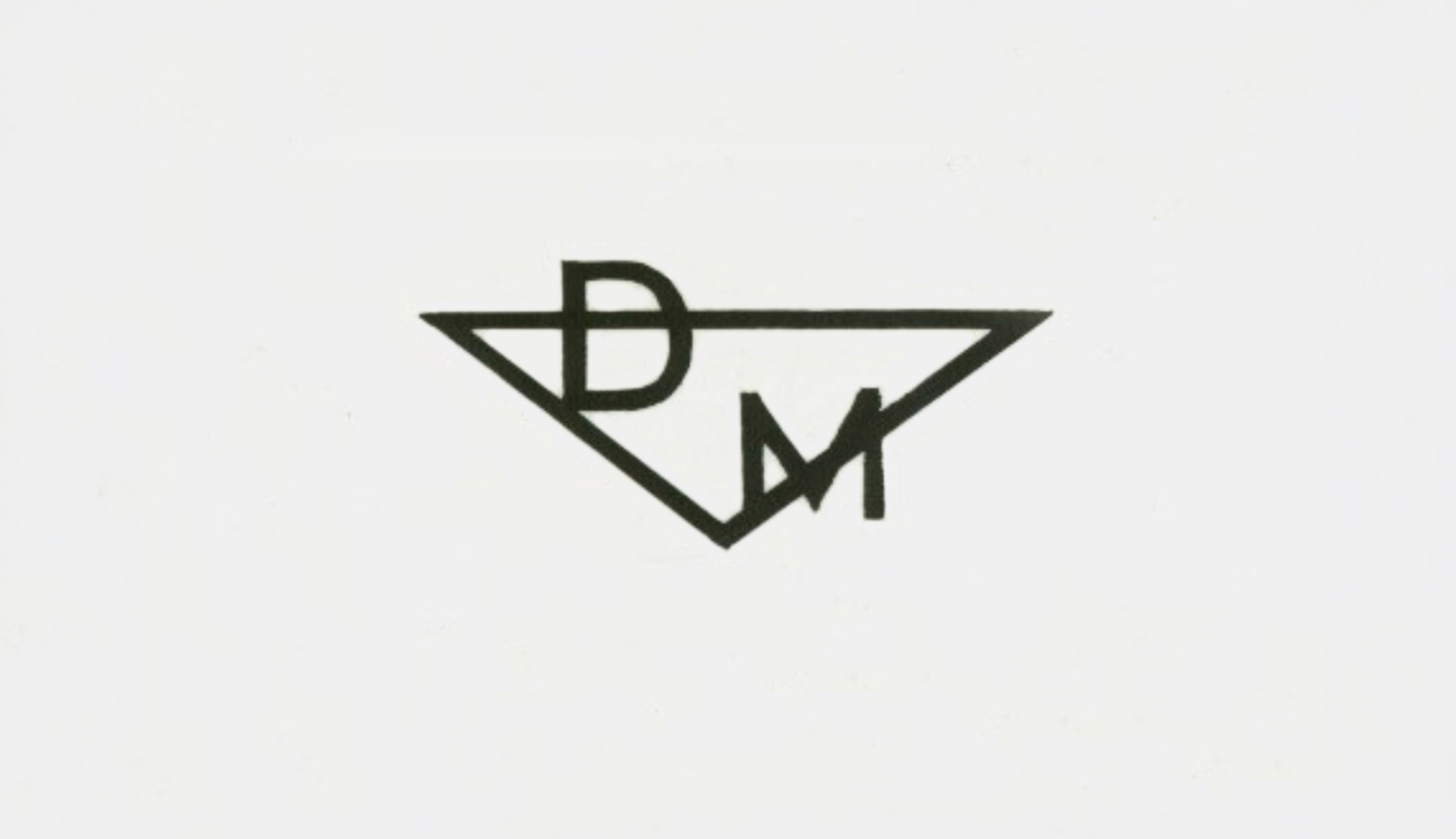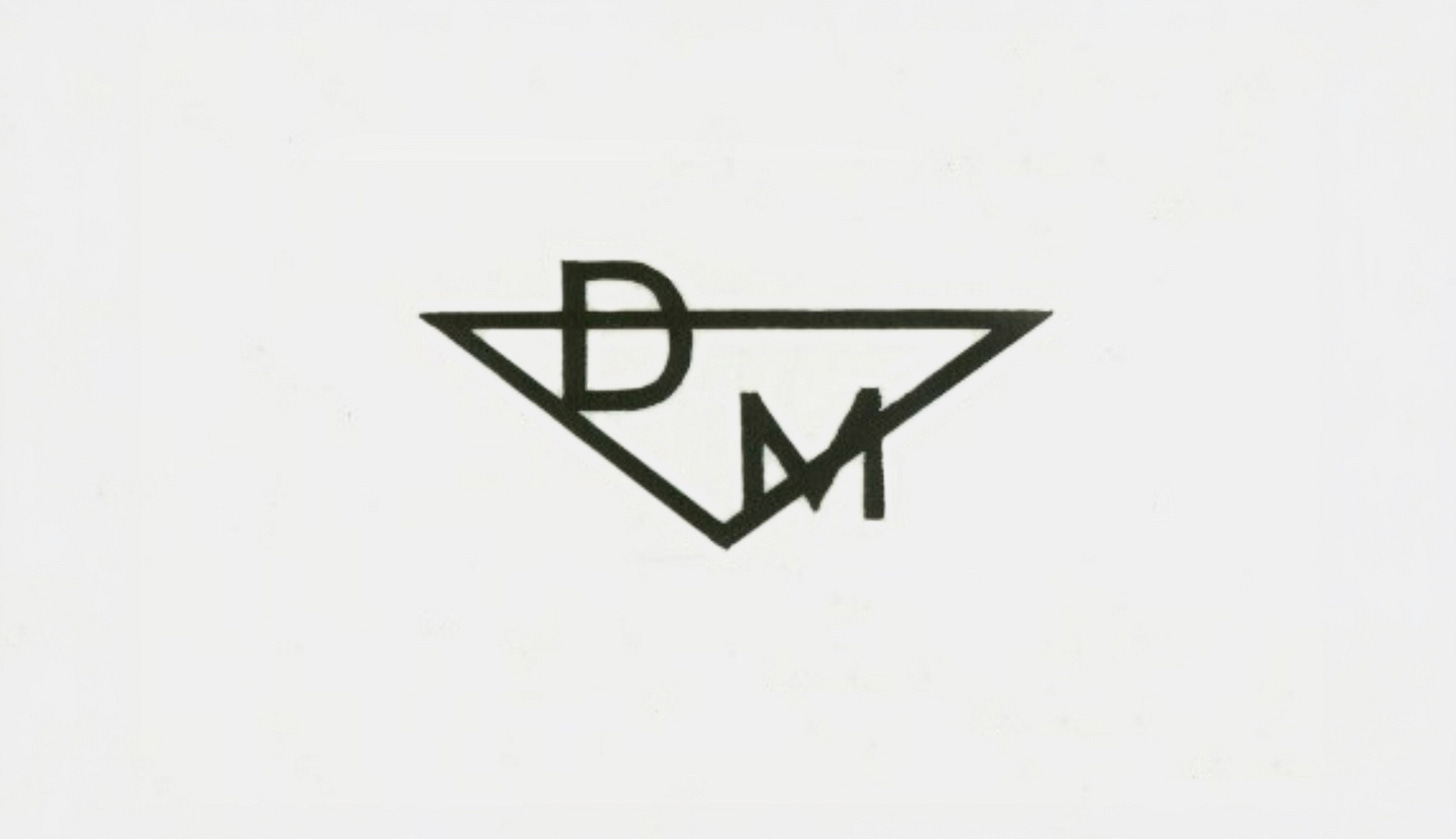
Dagenham Motors was not a separate automobile manufacturer in the usual sense. It was a major London Ford distributor, dealership organization and promoter of specially bodied Ford cars.
Its roots were in the Car Mart group, founded by Major R. S. Grigg. Car Mart began with a hire-car operation, later became an important London motor dealer, and established the Car Mart Garage in Balderton Street near Oxford Street. That garage developed into Dagenham Motors Ltd. around 1932.
During the 1930s, Dagenham Motors attempted to move Ford slightly upmarket by offering limited-production bodies on ordinary Ford chassis. It also commissioned commercial bodies, including van and pickup designs on Ford Model C and CX chassis. The firm was therefore functioning partly like a traditional coachwork agent: selecting or commissioning distinctive bodies and marketing the completed cars through its Ford distributorship.
Among its best-known offerings were the Ford V8 “D.M. Specials.” In October 1935, a bare Ford V8 chassis suitable for special bodywork cost £190. Dagenham Motors offered a completed D.M. Sports Saloon for £425 and a D.M. Foursome Drophead Coupé for £415—nearly twice the price of a standard-bodied Ford.
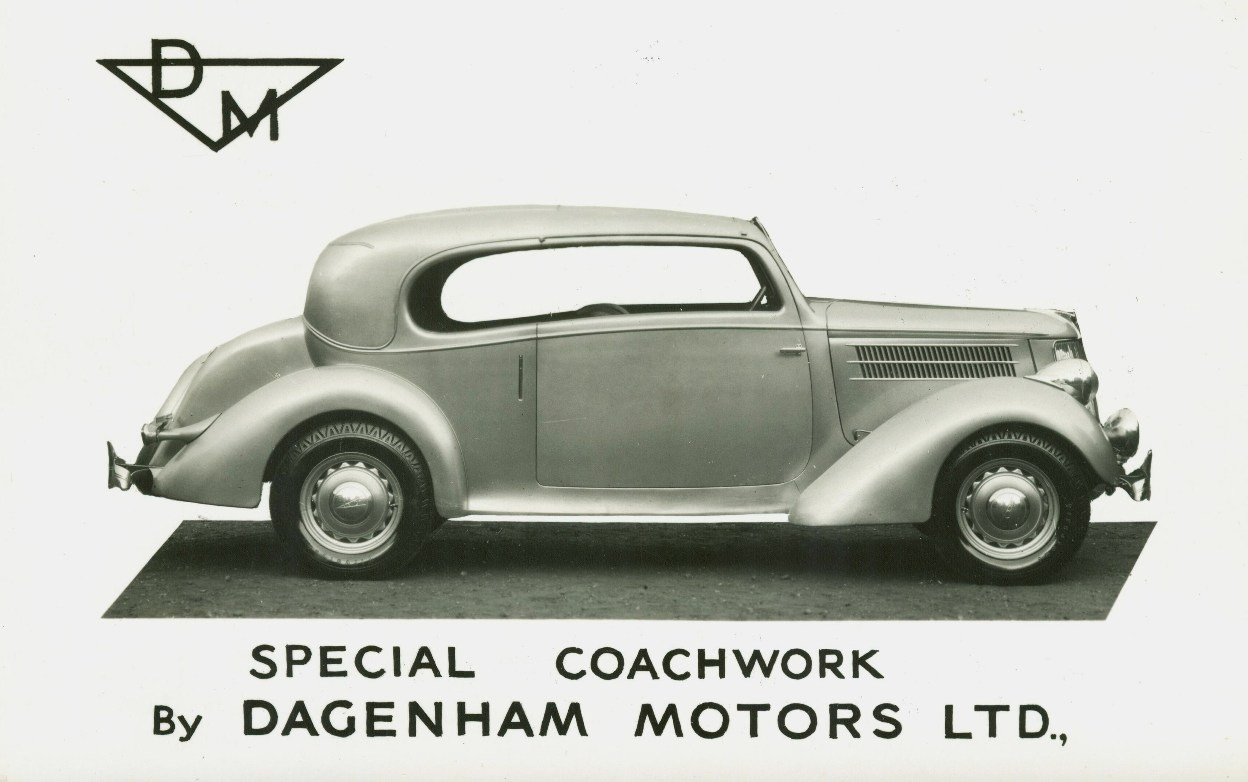
The Vogue Coupé has several details that distinguish it from the regular Ford body, including a very low, close-coupled two-door roofline, a long, uninterrupted side window opening, a more rounded and formal rear roof treatment, small luggage compartment, flowing rear fenders and a standard Ford V8 chassis, bonnet, running gear with much of the front sheet metal beneath the custom body.
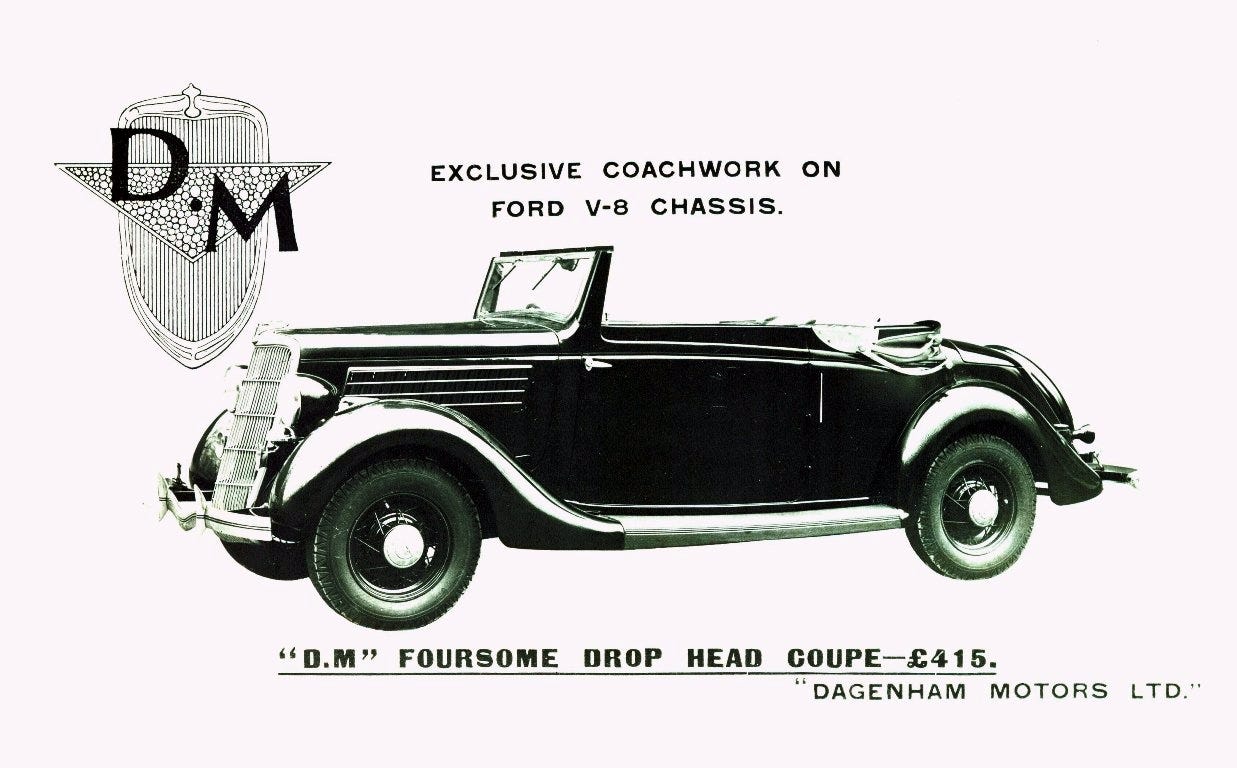
The Foursome Drophead Coupé was the open version, with a folding roof that could be used fully closed, partly open or completely lowered. Surviving references indicate that these were handmade or extremely limited-production automobiles; very few examples are known today.
The coachbuilt cars were only a small and glamorous part of the business. Dagenham Motors’ main activity remained selling, servicing and distributing ordinary Ford cars and commercial vehicles.
By 1958, it was described as one of Britain’s largest Ford distributors, employing approximately 500 people.
Later advertising abandoned the elegant triangular DM emblem. By the 1980s, the identity normally combined the familiar Ford oval with a bold italic Dagenham Motors wordmark.
Dagenham Motors eventually became part of the larger Polar Ford/Ford Retail dealership organization. Ford Motor Company took full ownership of Polar Ford in 2004. In 2014, the various regional trading names—including Dagenham Motors, Polar Ford, Brunel Ford and others—were unified under the TrustFord name.